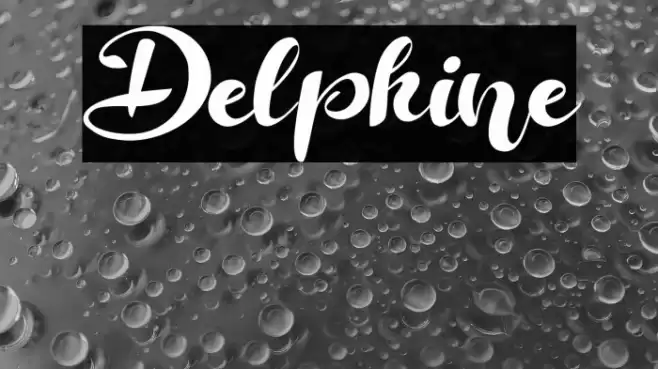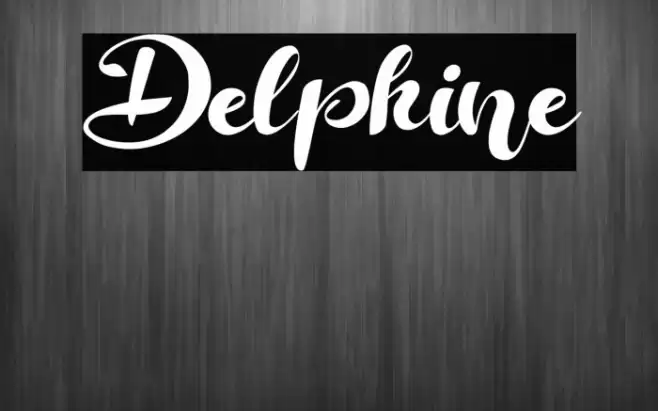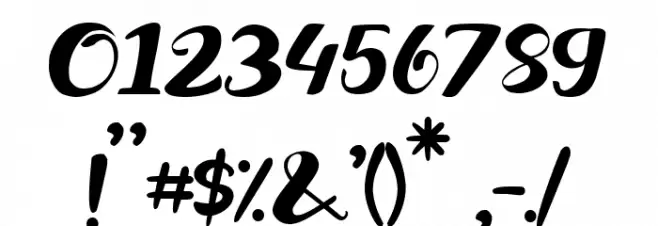
Delphine Font
Delphine Description
This font exudes a sense of elegance and fluidity, characterized by its cursive, script-like appearance. The letters are interconnected with smooth, flowing strokes that give it a handwritten feel. The uppercase letters are bold and prominent, while the lowercase letters maintain a consistent style with slightly exaggerated loops and curves. The numerals are equally stylized, maintaining the overall aesthetic of the font. Special characters are designed to match the flowing style, adding a cohesive look to any text. This font is ideal for projects that require a touch of sophistication and personal flair.
An elegant, cursive script font with flowing, interconnected strokes from Uncategorized fonts.
- Proposed Projects: Ideal for wedding invitations, greeting cards, logos, and branding materials that require a personal and sophisticated touch.
- Overall Style: Elegant, Handwritten
- Use Case: Logos, Invitations, Greeting Cards